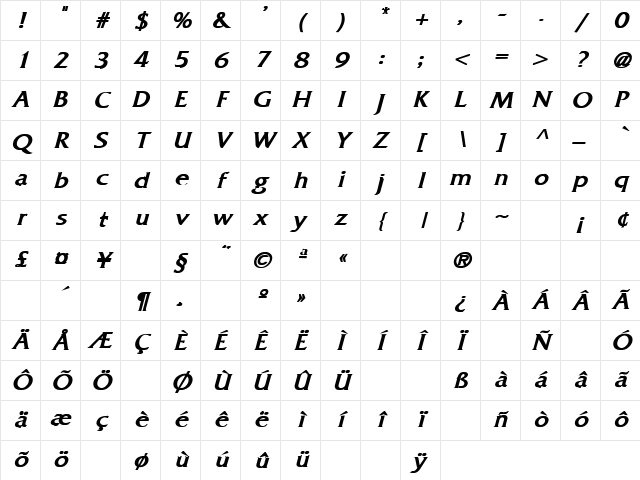
Keep Talking 4 Bold Italic
Complete Keep Talking 4 Bold Italic glyph index. Displaying only characters natively supported by Keep Talking 4 Bold Italic font.
Design Context for Keep Talking 4
Keep Talking 4 is a composed and adaptable typeface that performs quietly and consistently across a wide range of design contexts. The slanted form adds forward momentum and visual energy. Its bold stroke weight gives it real presence on the page.
Pro Tip: Use Keep Talking 4 for emphasis, pull quotes, and subheadings where its slanted energy can add rhythm to the layout.